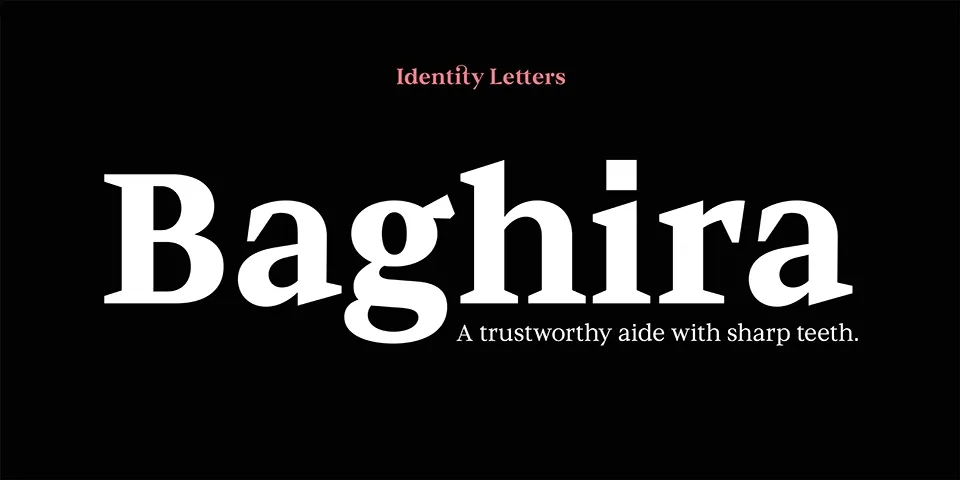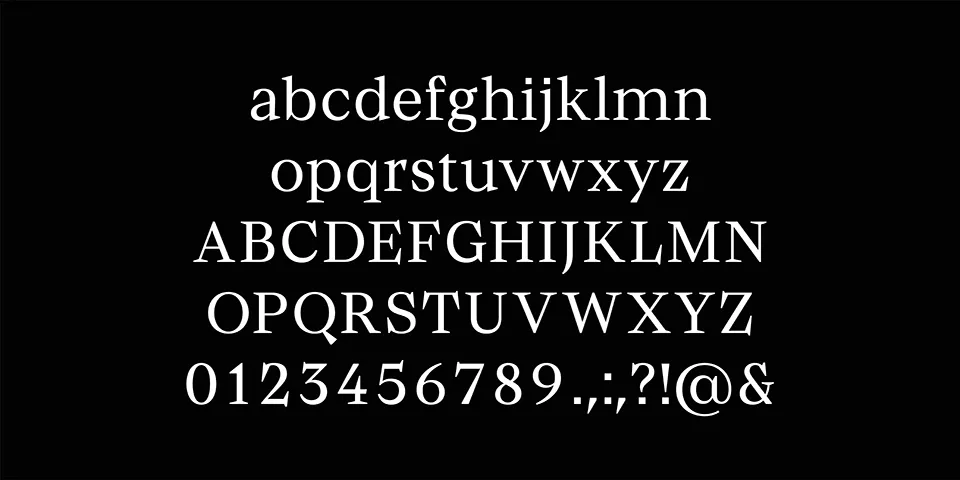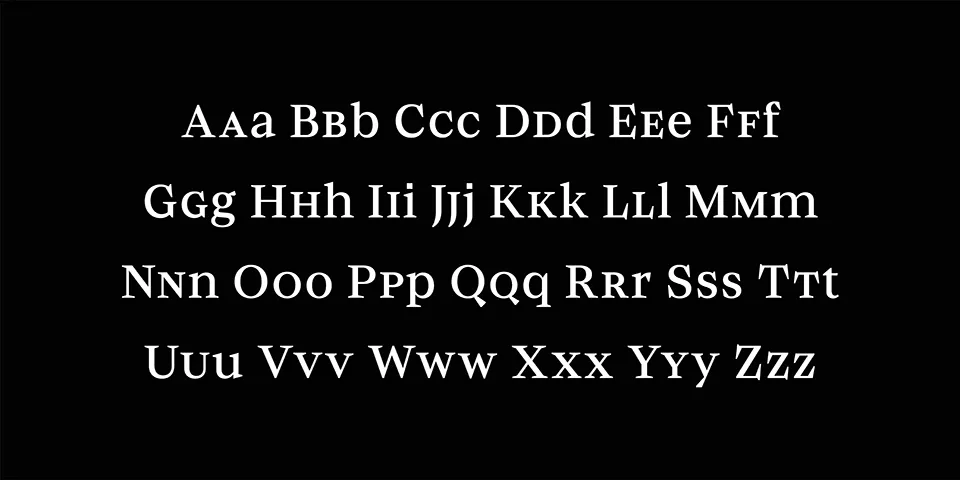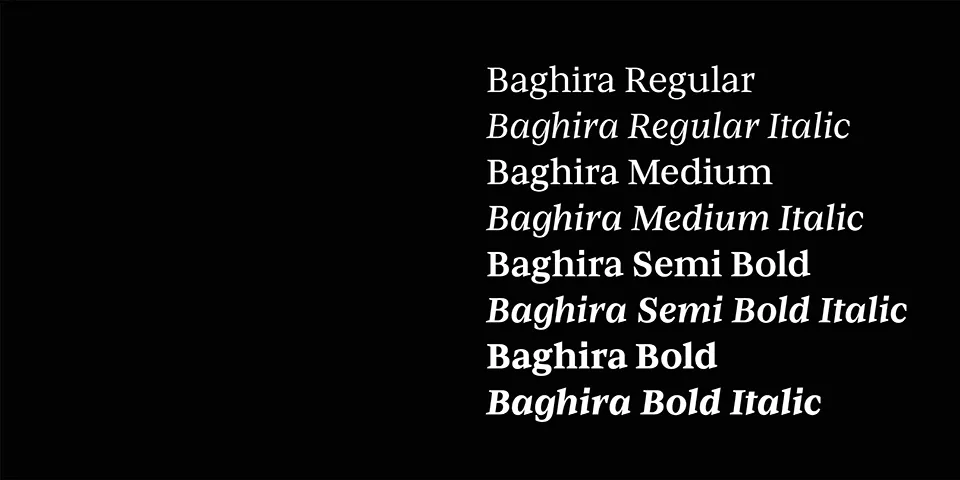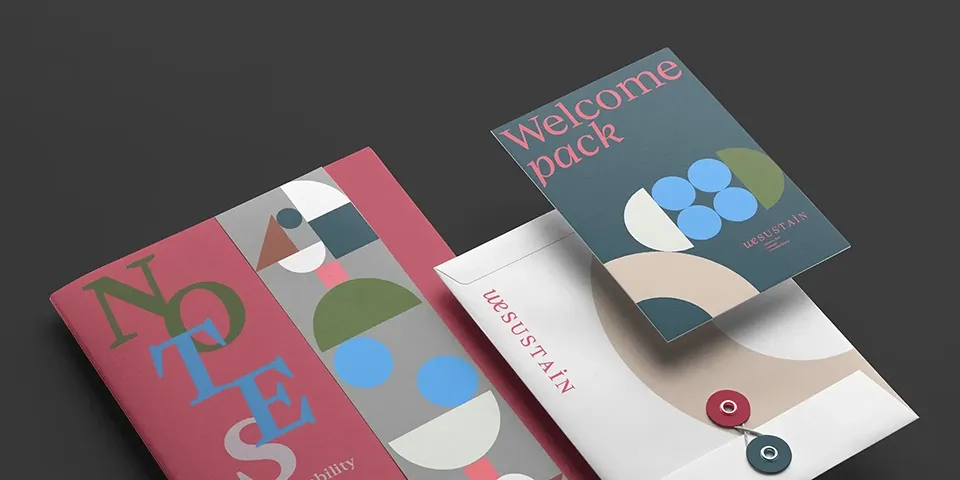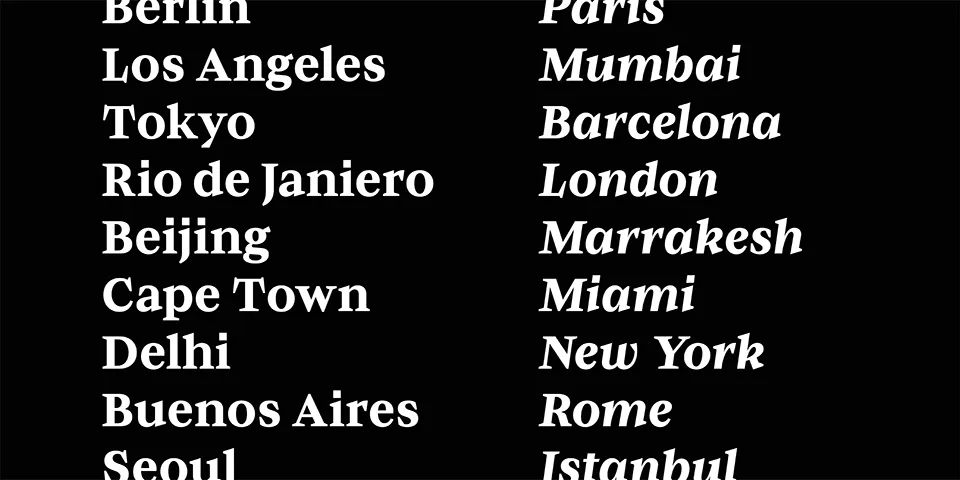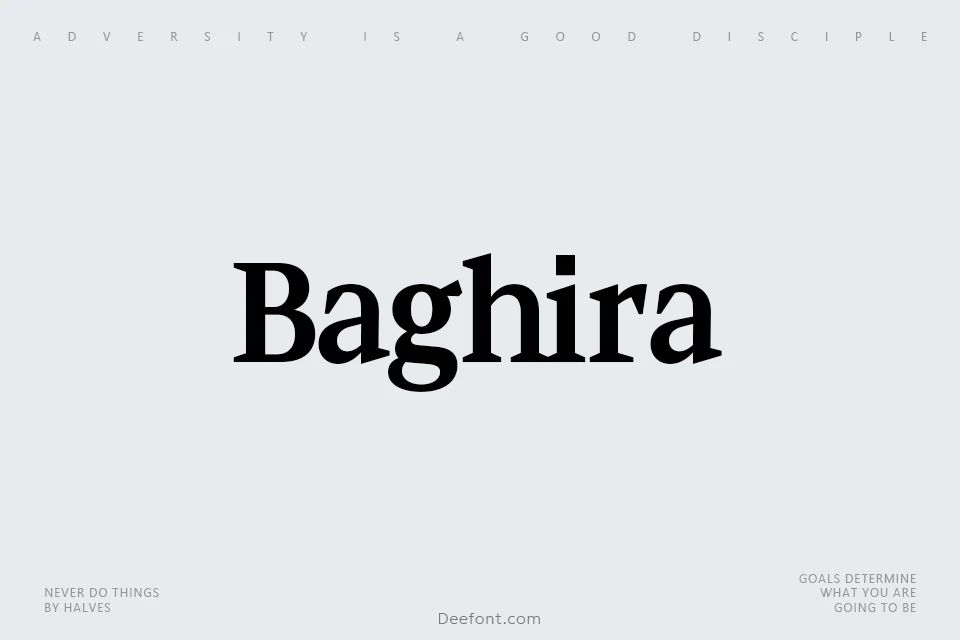
Baghira Font Family
Baghira Font Family is a bold and versatile serif typeface designed to command attention with its strong, confident letterforms. Balancing sharp edges with smooth curves, Baghira exudes sophistication and power, making it ideal for branding, editorial design, headlines, and logos. Its refined details and modern aesthetic ensure it stands out in any creative project while maintaining readability and elegance. The font family offers multiple weights, providing flexibility for both impactful displays and subtle text applications. Whether you’re crafting a striking headline or a polished logo, Baghira Font Family delivers a timeless yet contemporary appeal to elevate your designs.